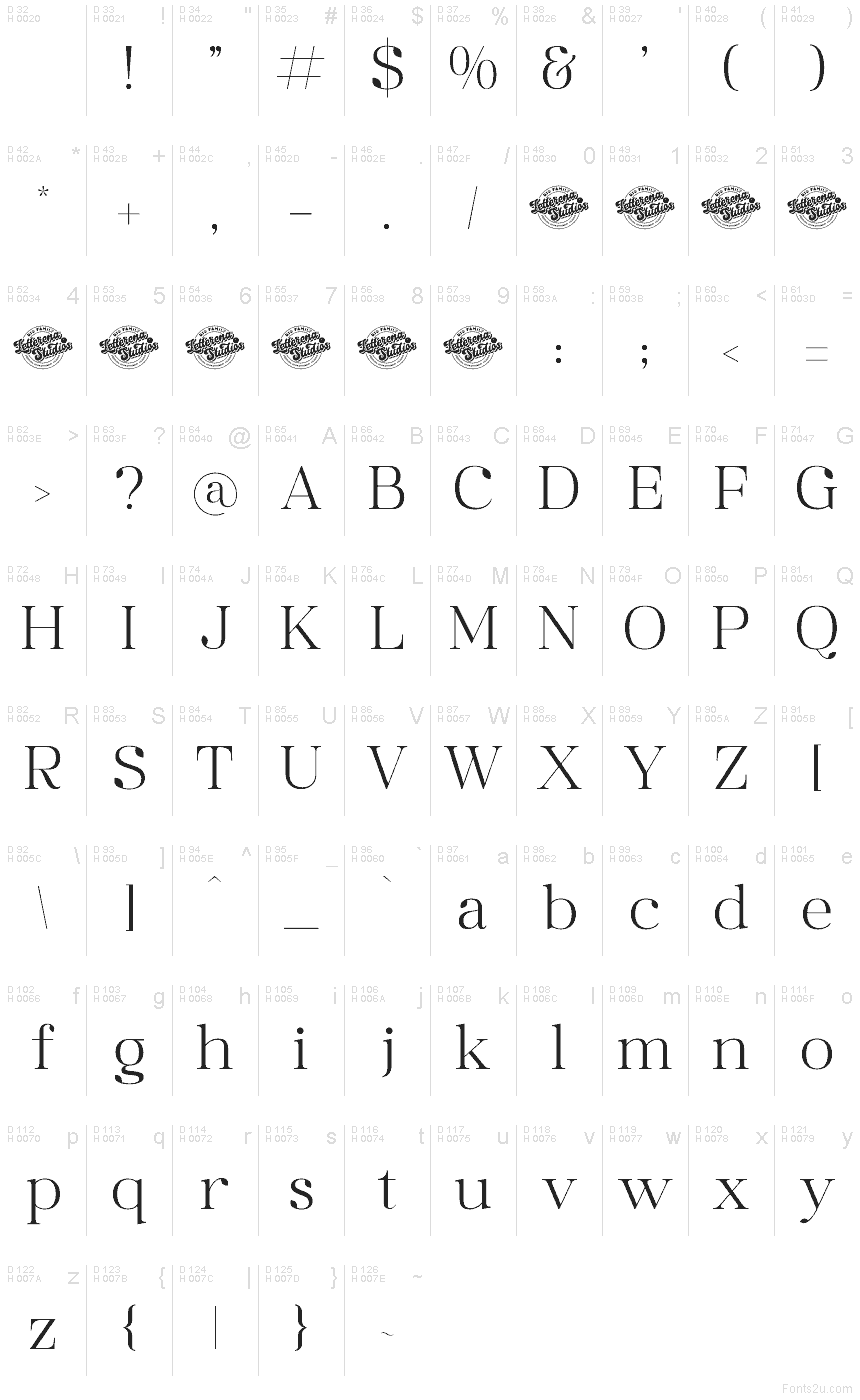
Maiken DEMO VERSION
Maiken font by Letterena Studios is a free regular high-contrast serif font. It solves a common challenge: getting couture-level elegance without sacrificing clarity at sub-headline sizes. Razor-thin hairlines, taut vertical stress, and crisp, knife-edge serifs give it that magazine-gloss finish, while measured spacing keeps it from feeling brittle. It’s chic, composed, and wonderfully readable where many Didone-style serifs fall apart.
Using Maiken, headlines and logos land with poised authority, and product packaging, beauty campaigns, fashion lookbooks, event invitations, and editorial pull quotes all shine. This free font thrives from 18pt upward; give it breathing room and it sings. For a polished system, pair it with a neutral sans for body copy—keep the sans light to let Maiken’s contrast do the talking.